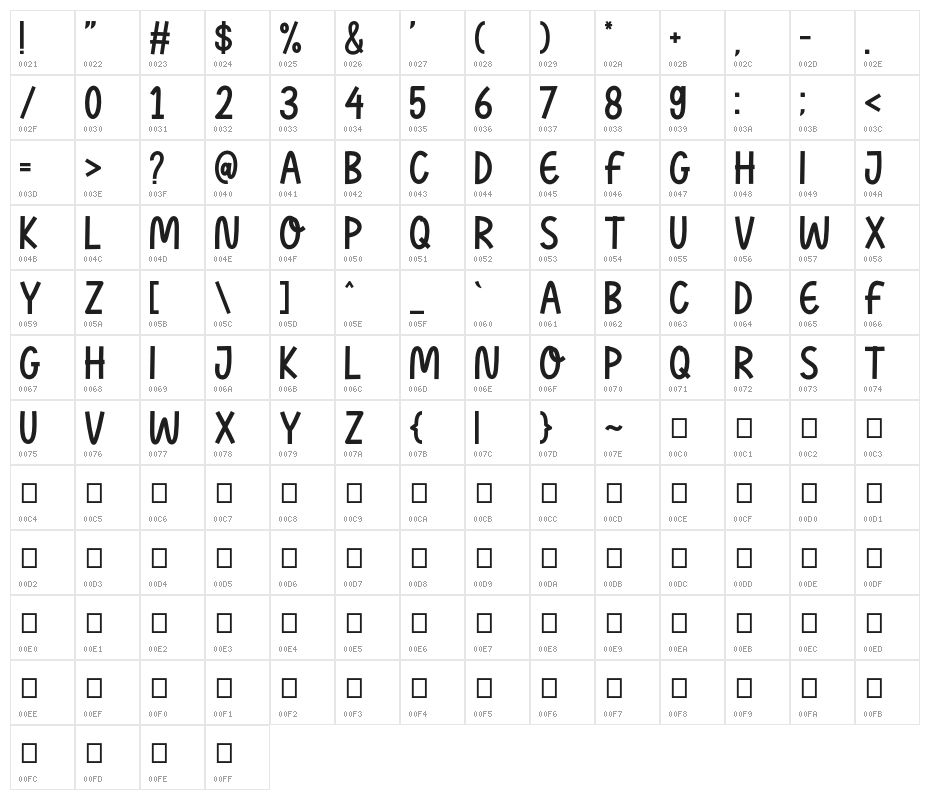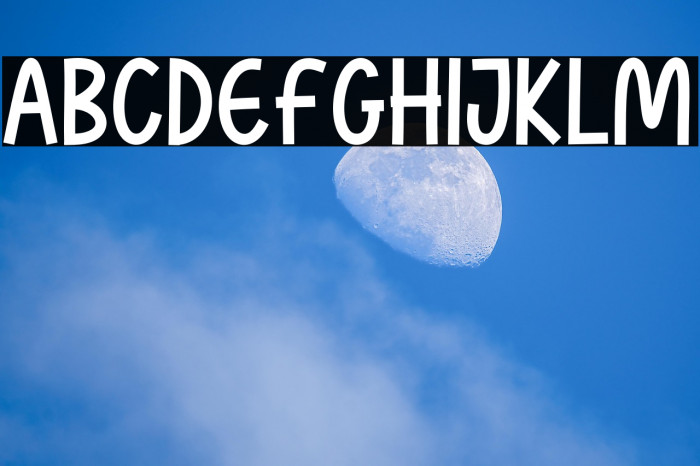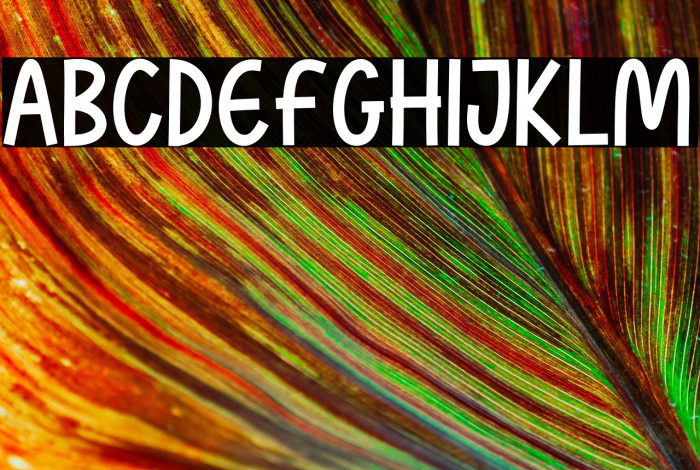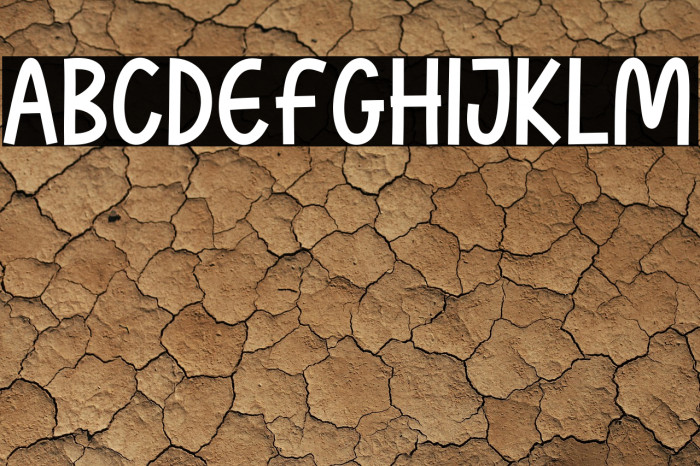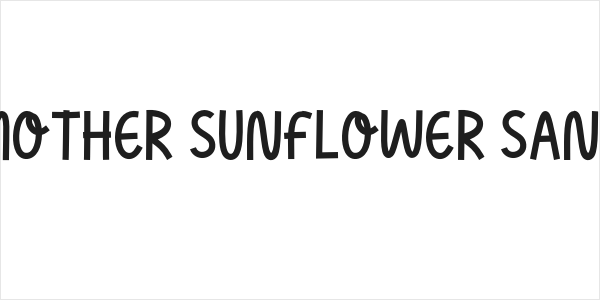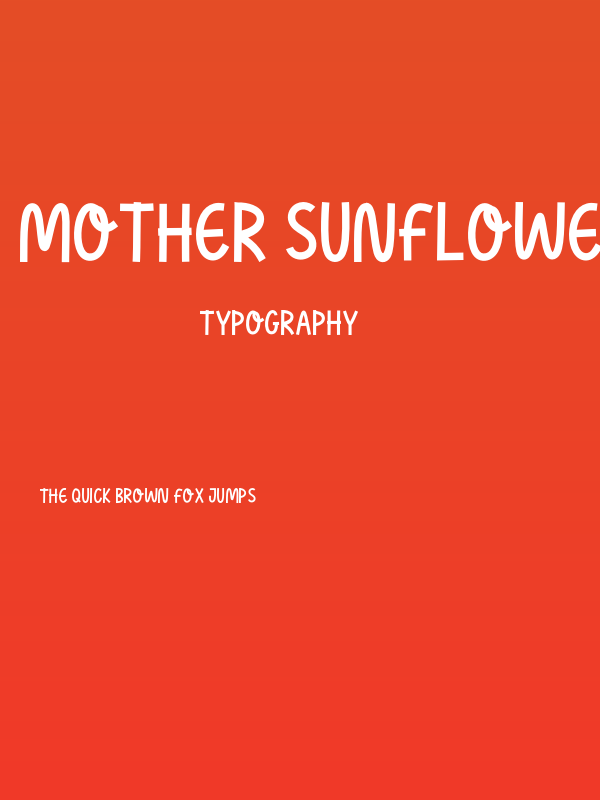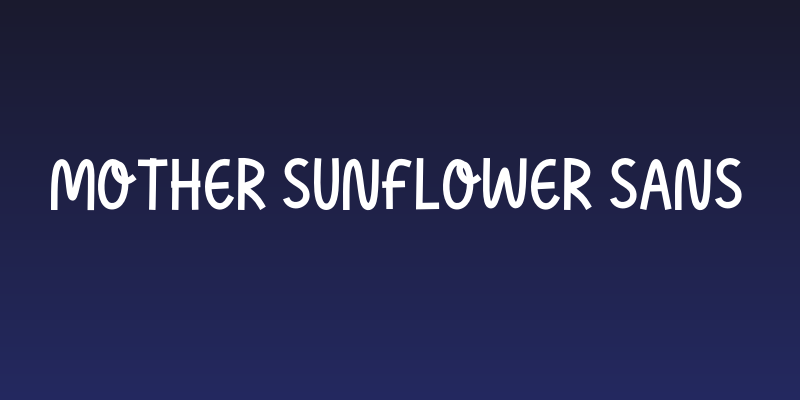
Mother Sunflower Sans Font
Mother Sunflower Sans Description
This font features a playful and whimsical style with rounded edges and a hand-drawn appearance. The characters are bold and slightly condensed, giving them a friendly and approachable look. The uppercase and lowercase letters maintain a consistent style, with a slight slant that adds to the casual feel. The numerals are clear and easy to read, matching the overall aesthetic of the font. Special characters are well-integrated, maintaining the same playful and informal design. This font is ideal for projects that require a fun and engaging visual appeal.
| Proposed Projects | Children's books, greeting cards, playful branding, and casual invitations. |